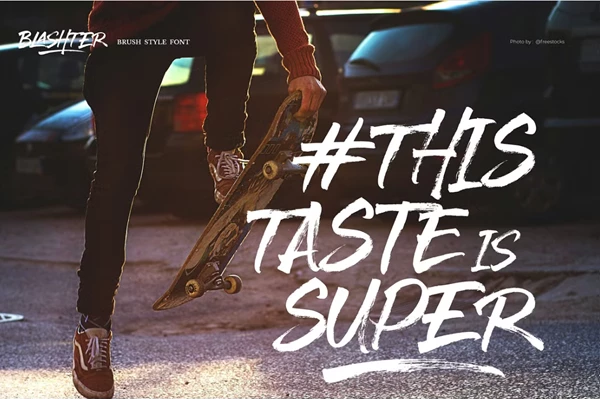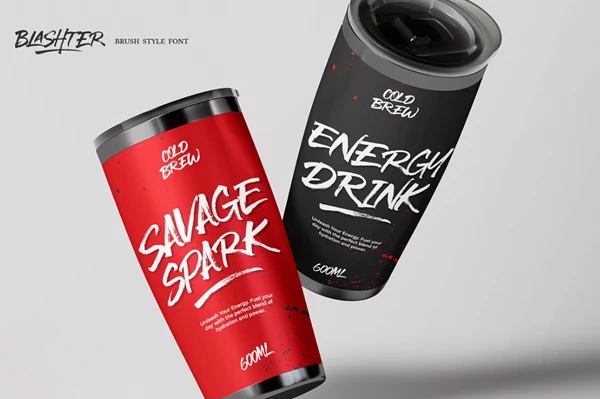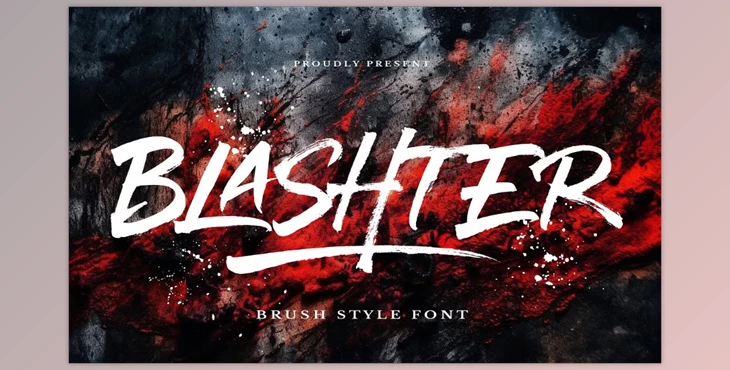
Blashter - Brush Font:
The essence of dynamic street art is captured in the bold swirl of strokes that make up each letter with such vibrant energy.
Equally impactful to artists transcending borders, Blashter caters to designers by offering multilingual aid, immediately broadening its utility. Be it creative logos or visual branding, posters, as well as publications across digital or print mediums, both directly profit from enhanced typography.
Some great features of Blashter - Brush Font:
- Has an uppercase and lowercase letter as well as a full character set.
- Also includes Ligature and Florette styling plus embellishment.
- All numbers that are needed and punctuation marks Completed.
- Support for many languages Spoken in the Region Is extensive and multilingual.
- It gives access to PUA-encoded characters, making it easy to reach them.